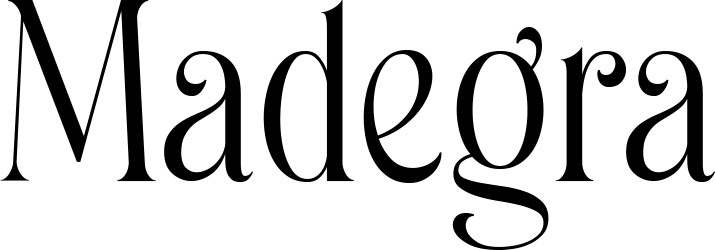
Madegra Font
If you are looking for a way to bring some professionalism and sophistication to your printed text, magazines, fashions, decorative, and headlines then you are gonna need an elegant font. Madegra is an awesome serif font with all those features. This is a pretty awesome font in which you get almost all the important characters.